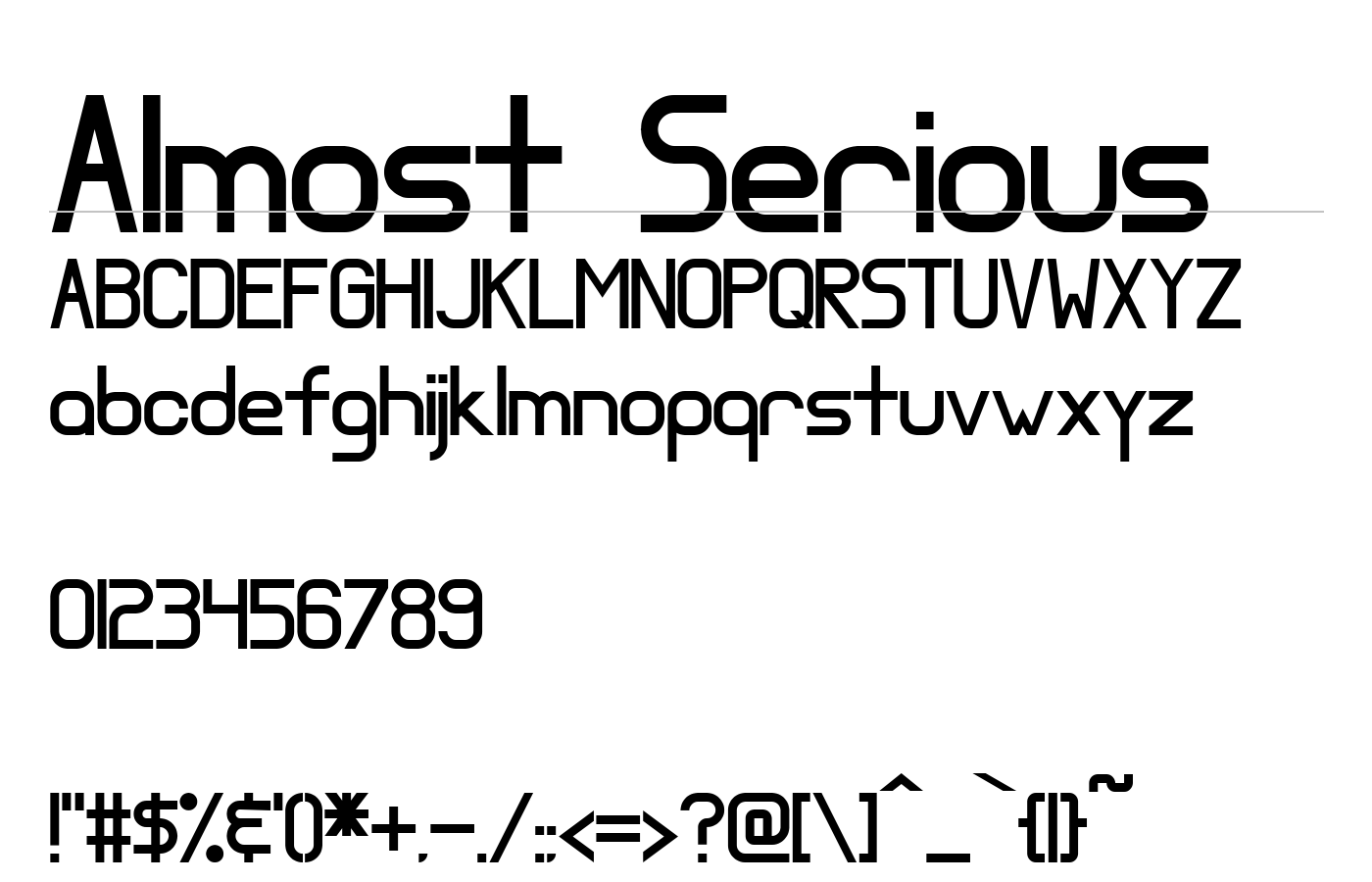
Almost Serious is a modern sans serif font with a narrow, geometric design and clean lines that create a sleek, futuristic feel. Its thin weight, consistent stroke width, and rounded edges give it a slightly playful, approachable personality while maintaining a professional tone, making it perfect for tech brands, editorial headlines, and contemporary logos. This font works well in digital and print contexts where clarity and a touch of uniqueness are desired.
Almost Serious Font
About Almost Serious Font